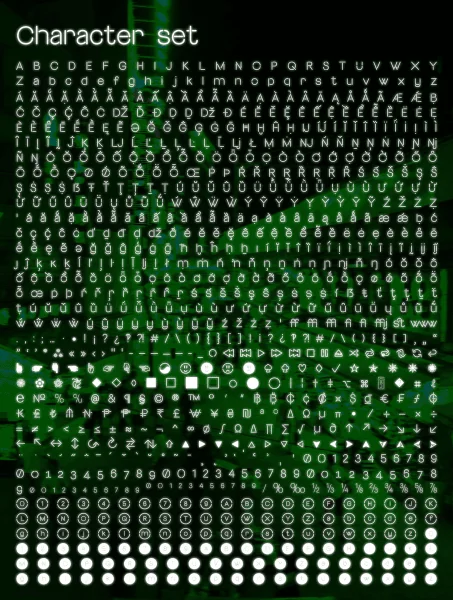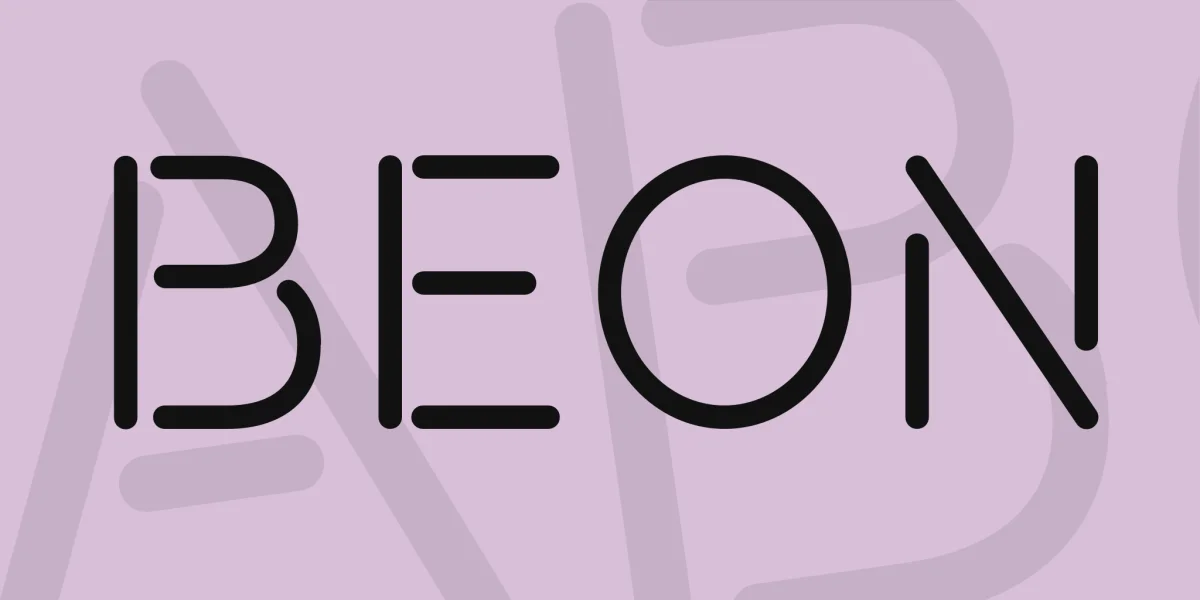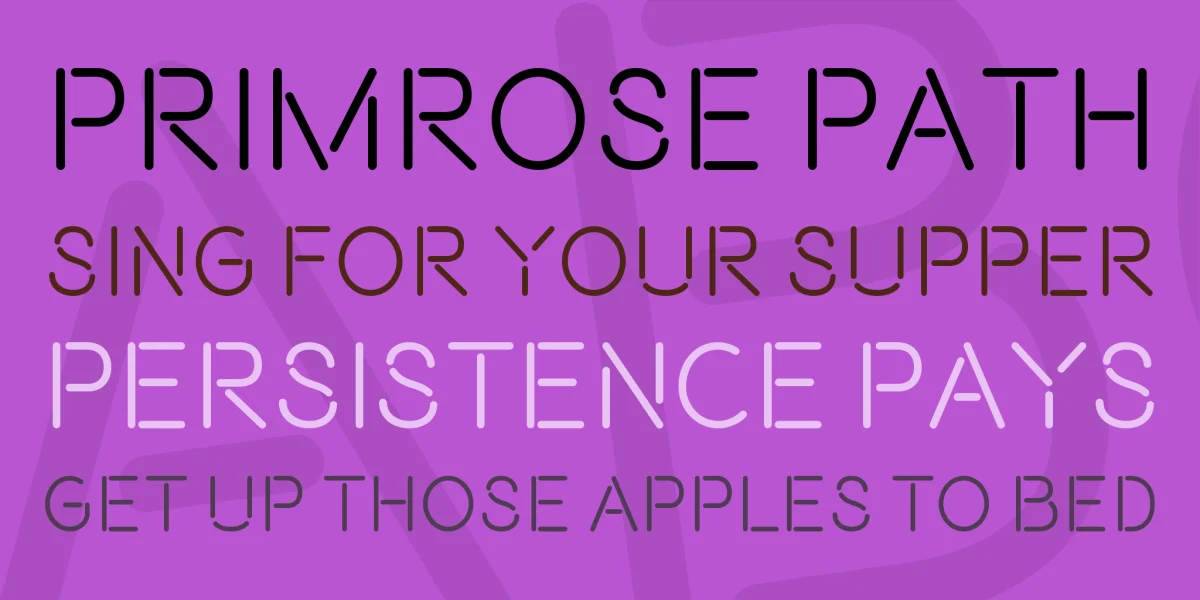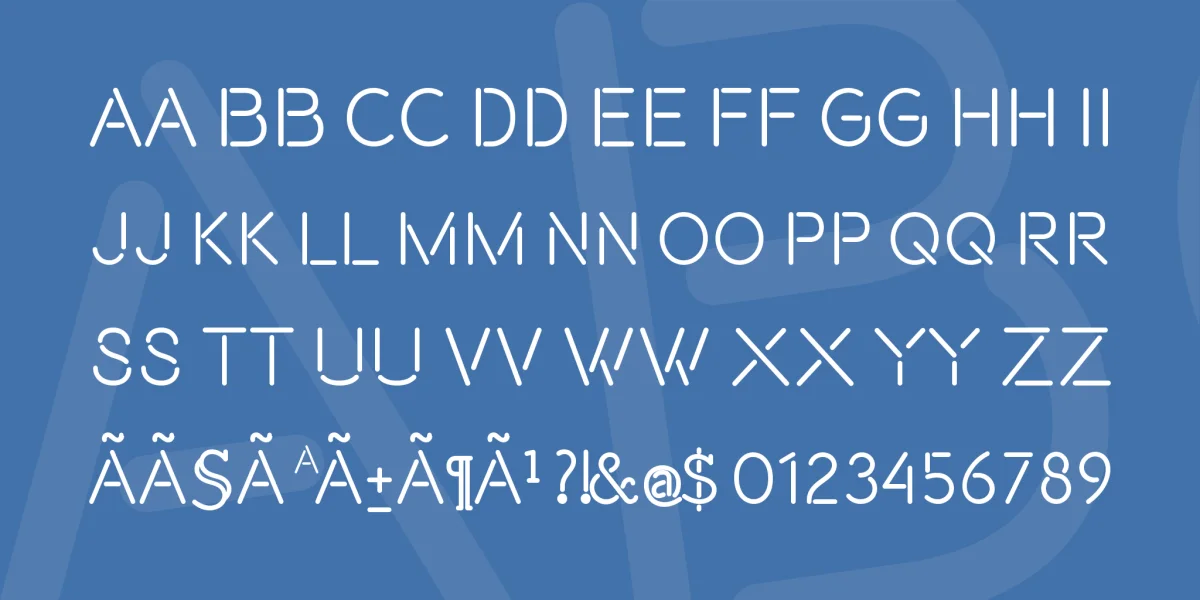
Beon is a Neon stencil typeface, comes in a single weight, including multilingual support and openType features. Beon can be used for a wide range of projects. The Beon font as originally been designed for the movie BangBang by Raphael L. Lungo, the typeface has been develop for the appearance of the names of actors and the final drop.